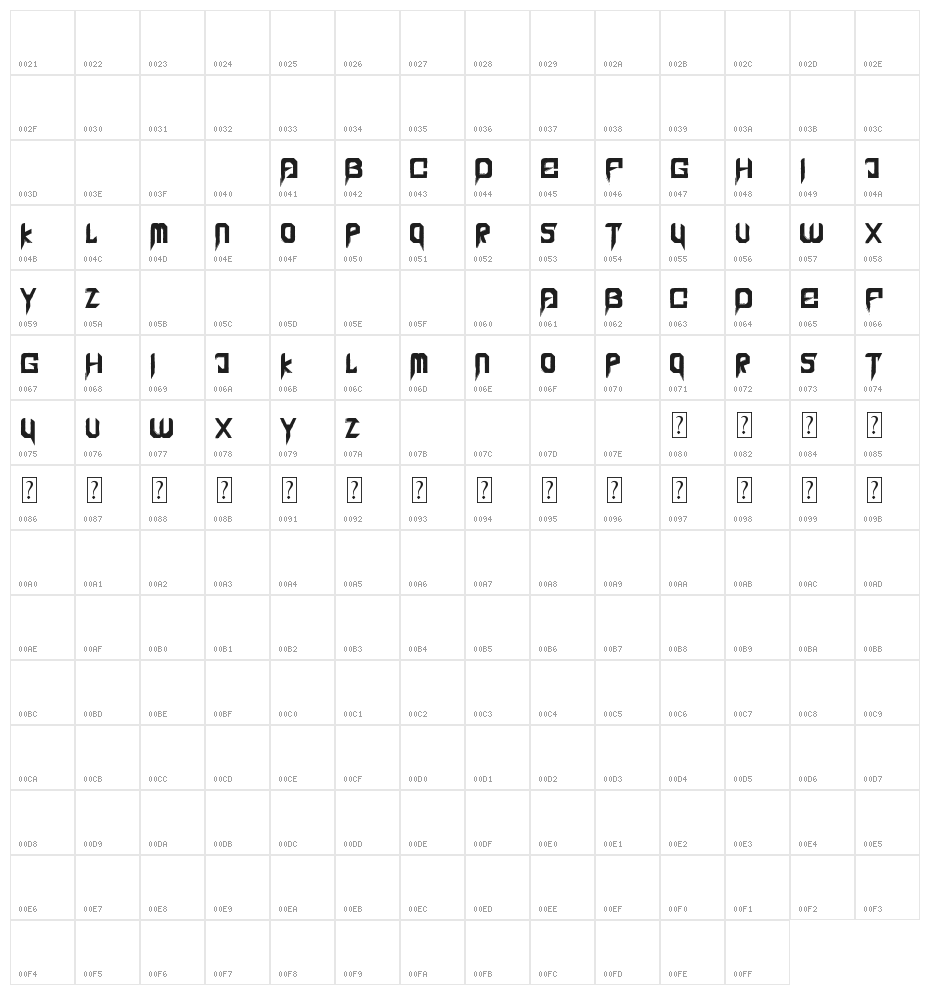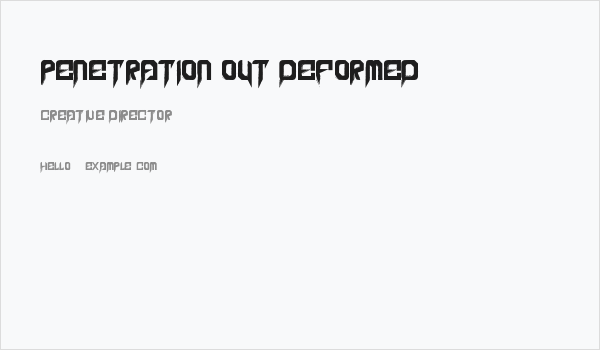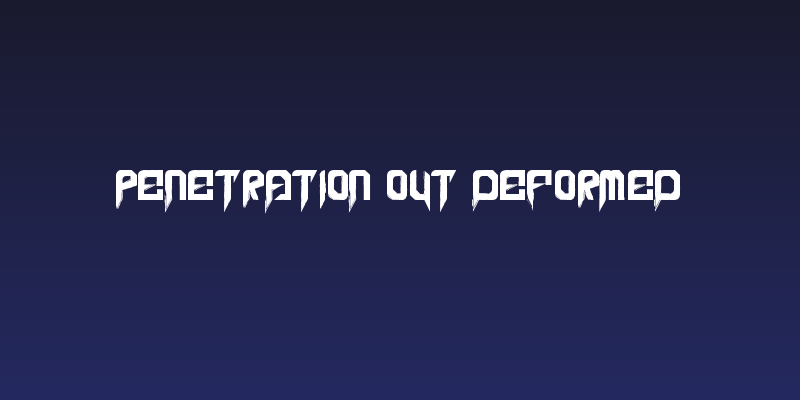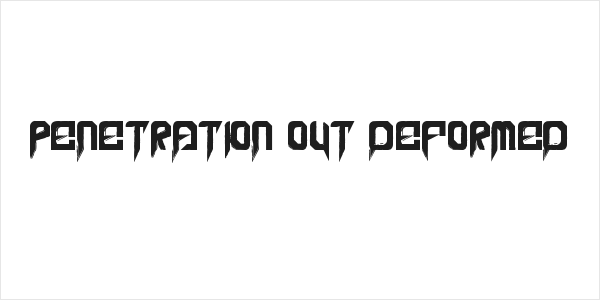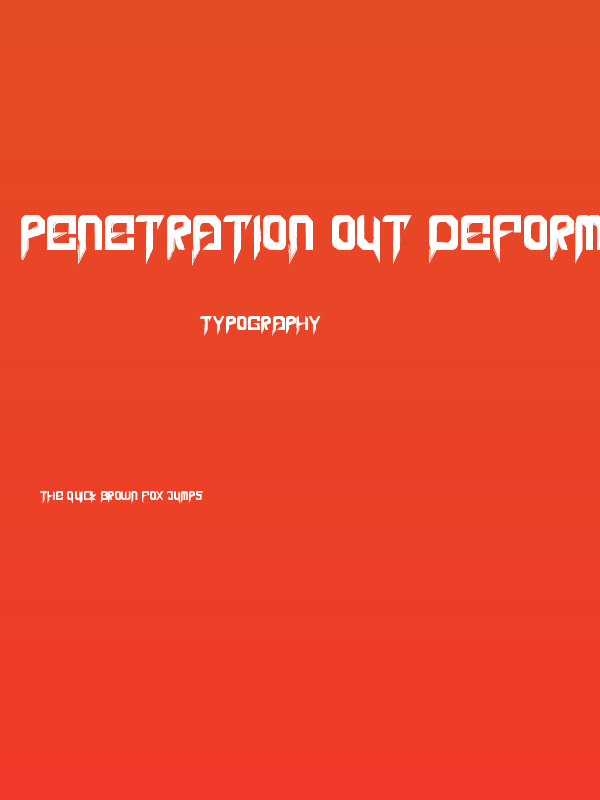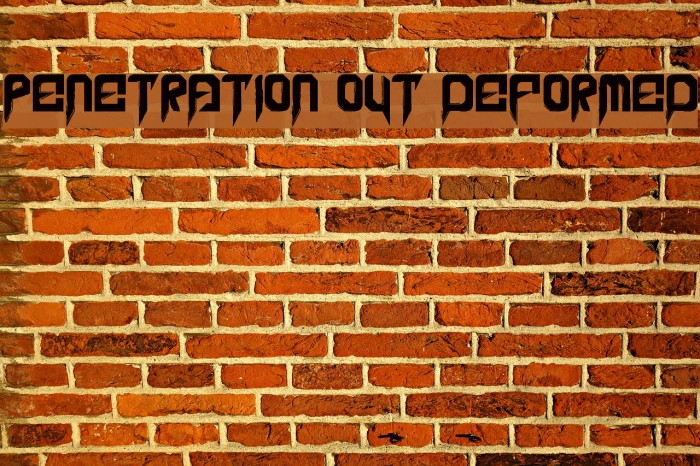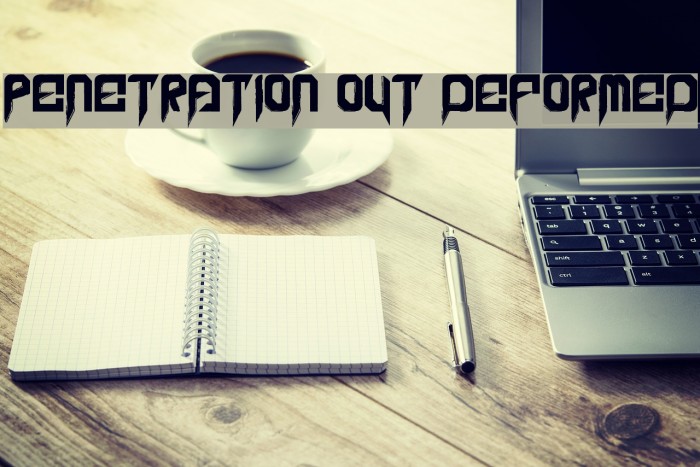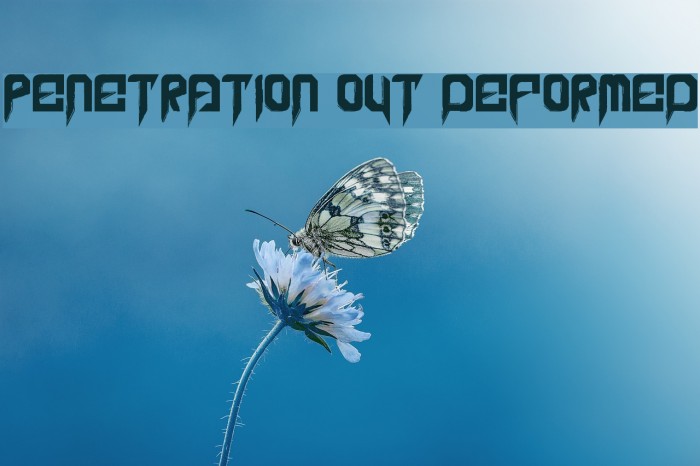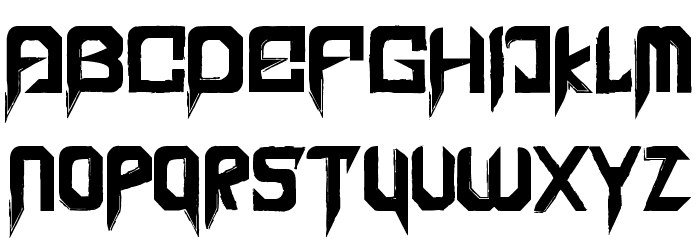
Penetration Out Deformed Font
Penetration Out Deformed Description
This font features a bold and aggressive design, characterized by sharp, angular edges and a distressed, deformed appearance. The letters are heavily stylized, with a jagged, almost shattered look that gives them a dynamic and edgy feel. The uppercase letters are particularly striking, with their bold lines and unique shapes. This font is designed to stand out and make a statement, perfect for projects that require a strong visual impact. The overall style is modern and decorative, with a hint of rebelliousness.
| Proposed Projects | Ideal for music album covers, video game titles, posters, and branding that requires a bold, edgy look. |